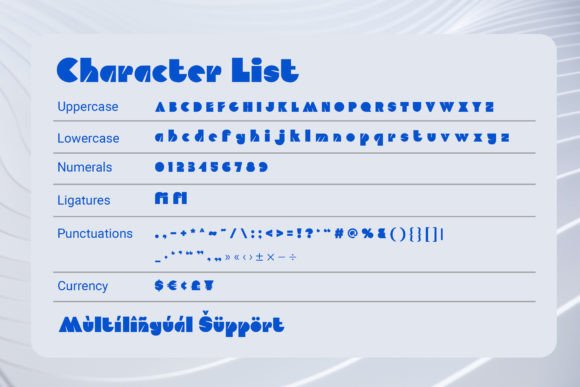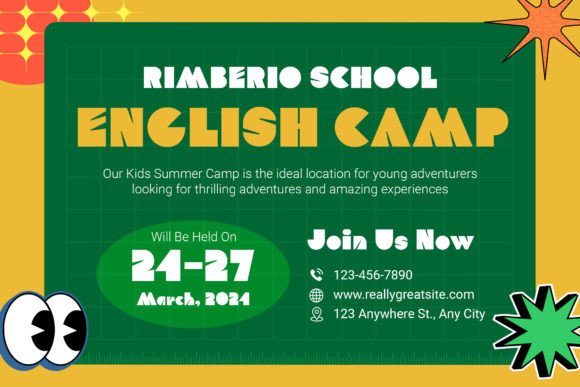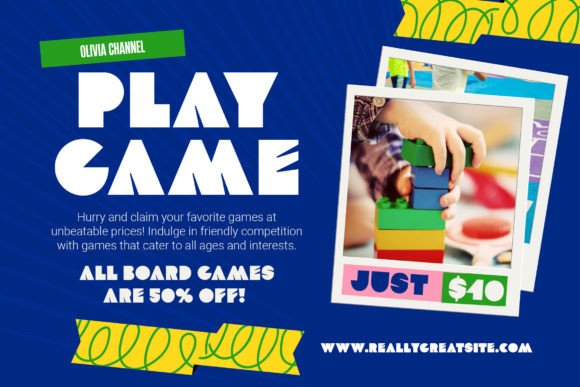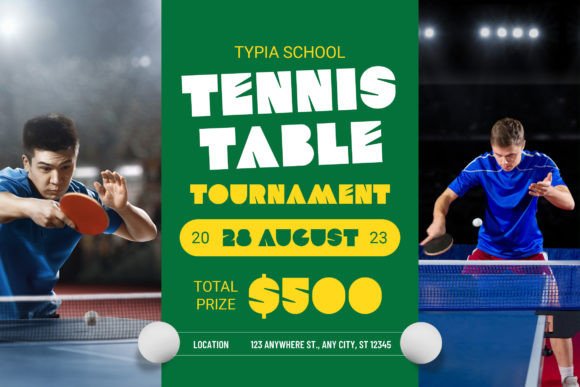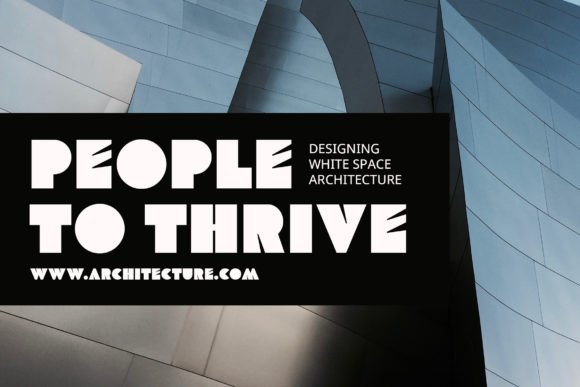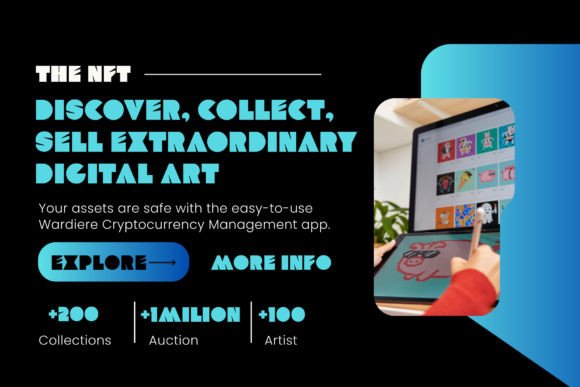
Introduction to Portako Font
As a designer, have you ever found yourself stuck in a creative rut, searching for that perfect font to elevate your project? You know, the one that makes your design pop and leaves a lasting impression on your audience. For me, that moment came when I stumbled upon the Portako Font – a game-changing design resource that has since become my go-to for any creative project.
With its solid bold sans design, Portako Font presents a modern and impactful aesthetic that’s perfect for a wide range of applications. Whether you’re working on a high-end branding project or a simple blog post, this versatile font is sure to make your design shine. Plus, with a free download available, you can get started on your next creative project without breaking the bank.
What sets Portako Font apart is its clean lines and bold presence, making it a valuable addition to any designer’s toolkit. And with its transparent background, you can easily layer it over images or other design elements to create a truly unique look. Trust me, once you try Portako Font, you’ll wonder how you ever lived without it!
Key Features of Portako Font
- Comes with a transparent background, allowing for easy customization
- Includes multiple font styles, including bold and italic variations
- Features a high-resolution design, suitable for use in print and digital media
- Designed as a versatile design resource, suitable for a wide range of creative applications
Honest Review: Portako Font
As a designer, I’m always on the lookout for high-quality design resources to elevate my creative projects. The Portako Font is one such find that has caught my attention. In this review, I’ll share my honest thoughts on this font, highlighting what works well and what could be improved.
- High-quality typography: The Portako Font boasts clean, elegant lines that make it perfect for various design applications.
- Transparent background: This feature allows for seamless integration with different backgrounds, giving designers more flexibility.
- Limited character set: The font’s character set is somewhat limited, which may not be suitable for complex design projects.
- Not ideal for small text: Due to its elegant design, the Portako Font may not be the best choice for small text sizes.
Overall, the Portako Font is a solid addition to any designer’s toolkit. While it may have some limitations, its high-quality typography and transparent background make it an excellent choice for various creative projects. If you’re looking for a free design resource, the Portako Font is definitely worth checking out.
Tips for Getting the Most Out of Portako Font
For the best results, use Portako Font on a high-quality background image or design. You can also experiment with different font sizes and styles to create a unique look. Additionally, consider combining Portako Font with other design elements, such as images or graphics, to create a visually appealing design.
Portako Font is commonly used in graphic design, digital art, and creative projects. It’s perfect for creating invitations, social media graphics, and other visual content. With its transparent background and high-quality design, Portako Font is a versatile and useful design resource.